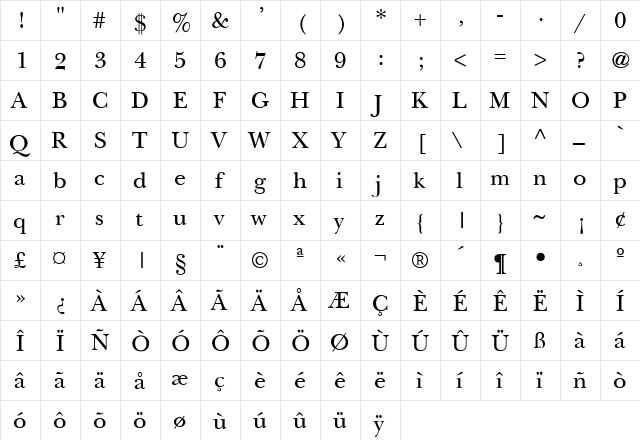
Bobson Regular
Design Context for Bobson Typeface
Bobson takes a measured approach to typography — its balanced proportions and neutral character make it a reliable workhorse for both digital and print work.